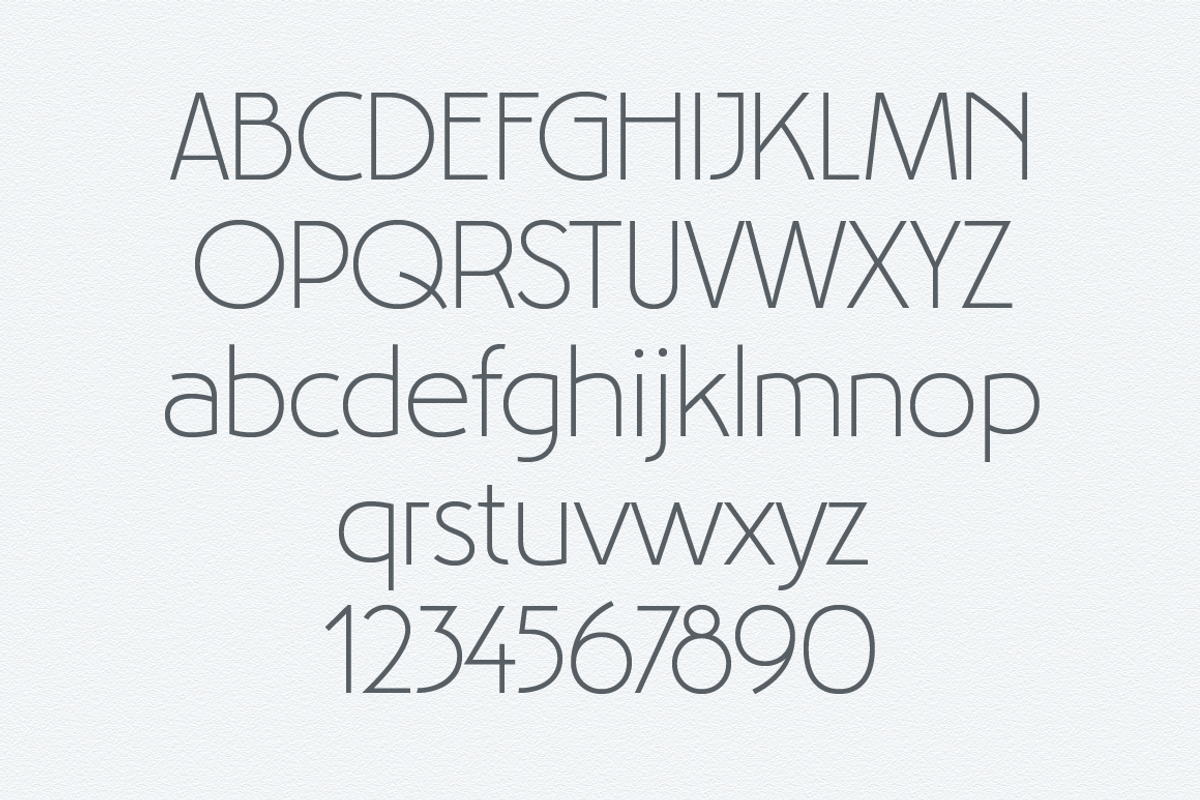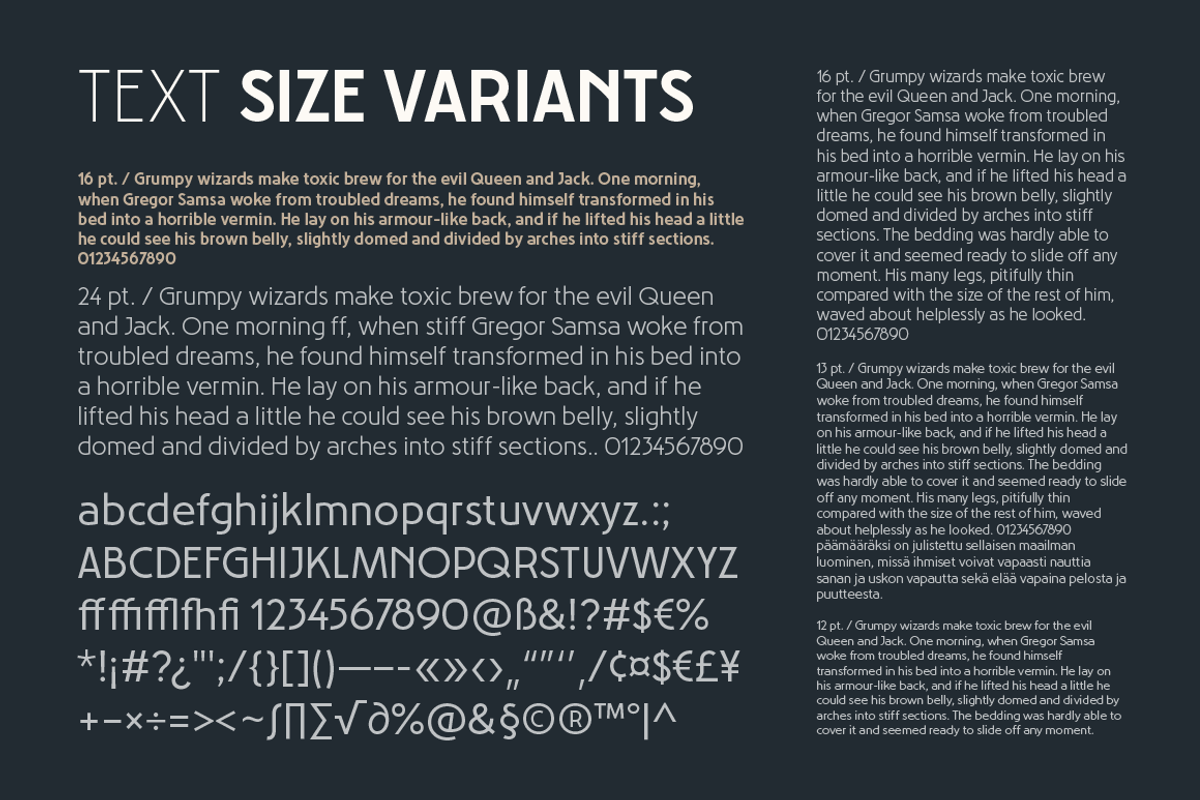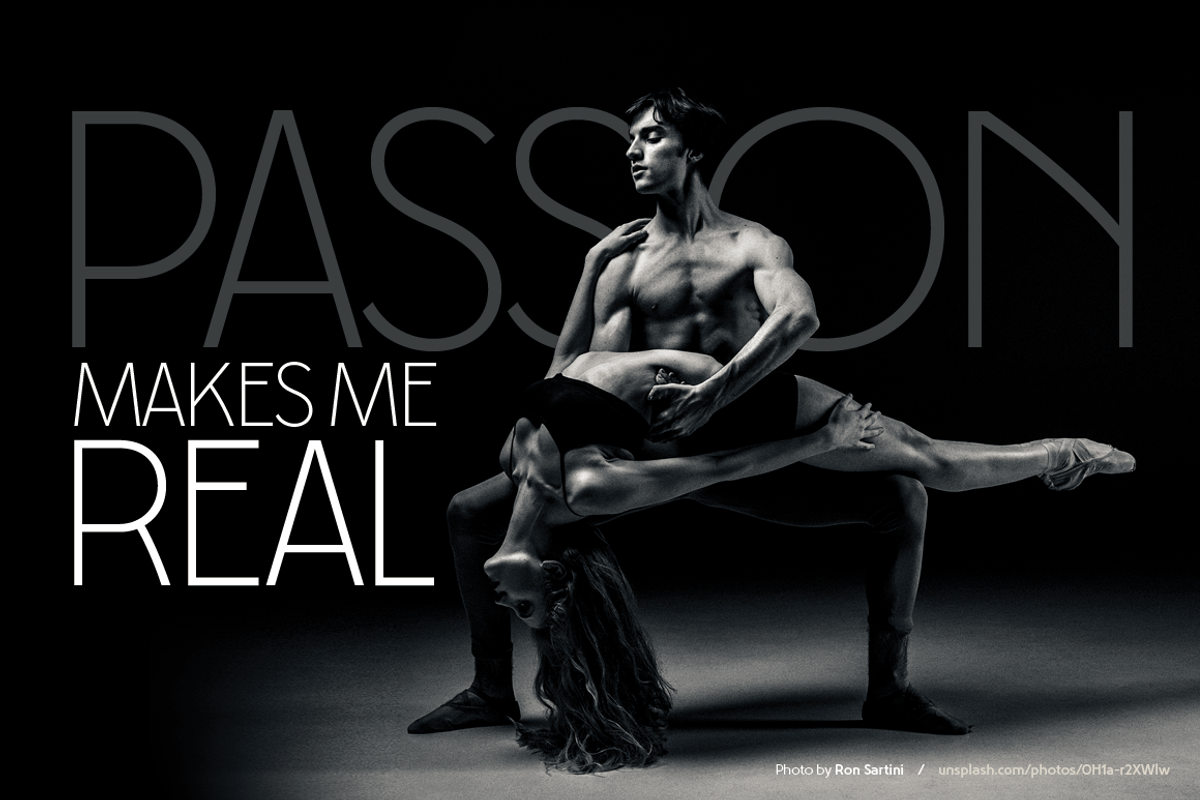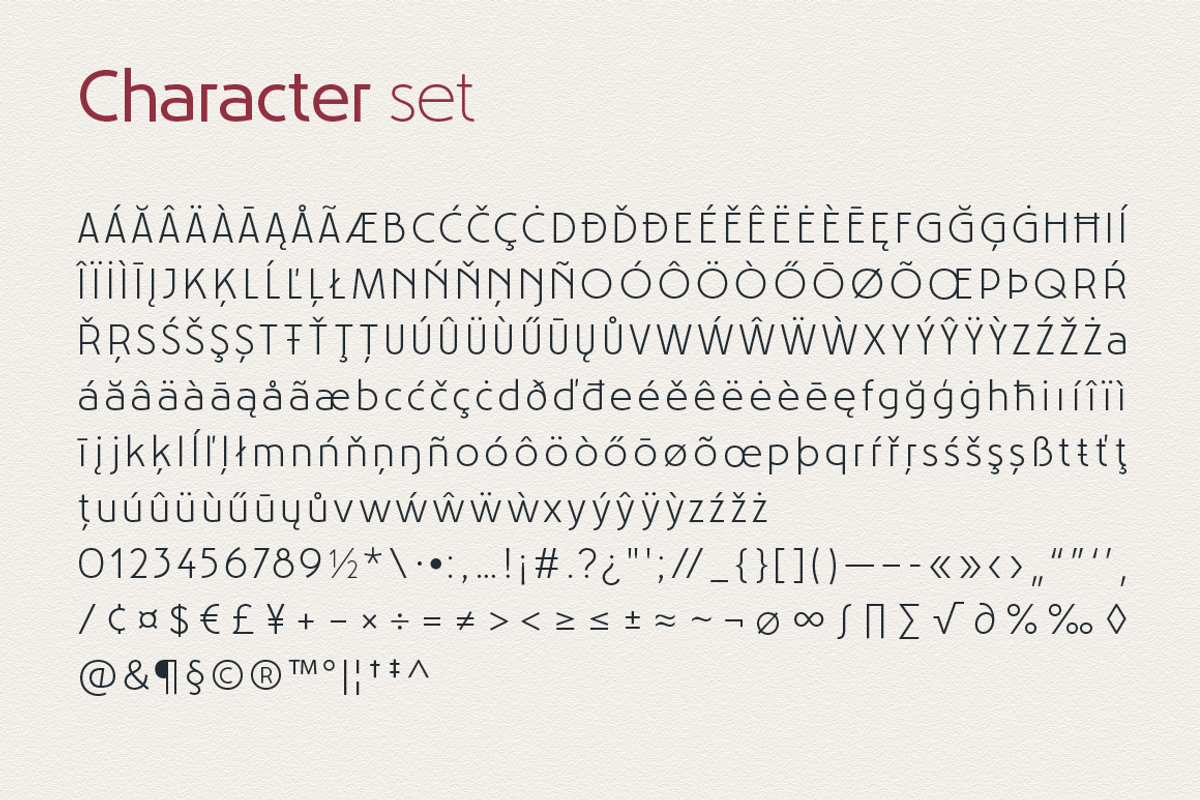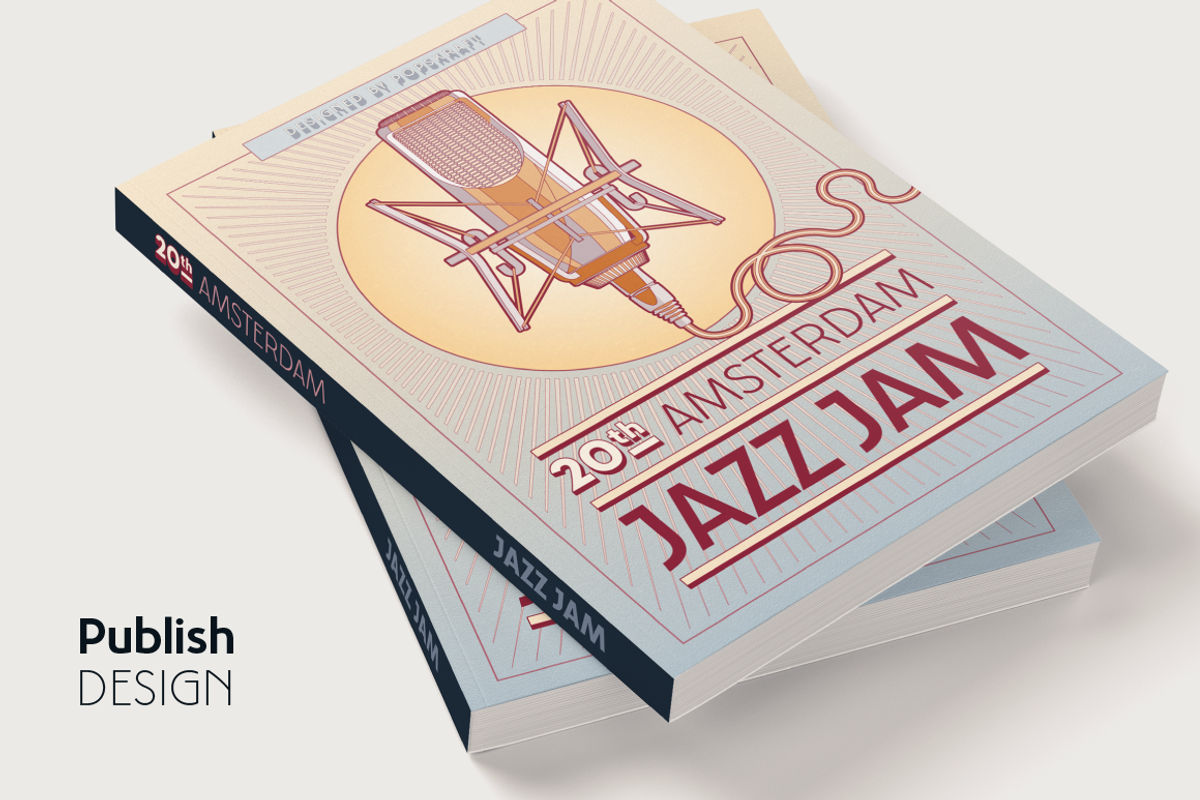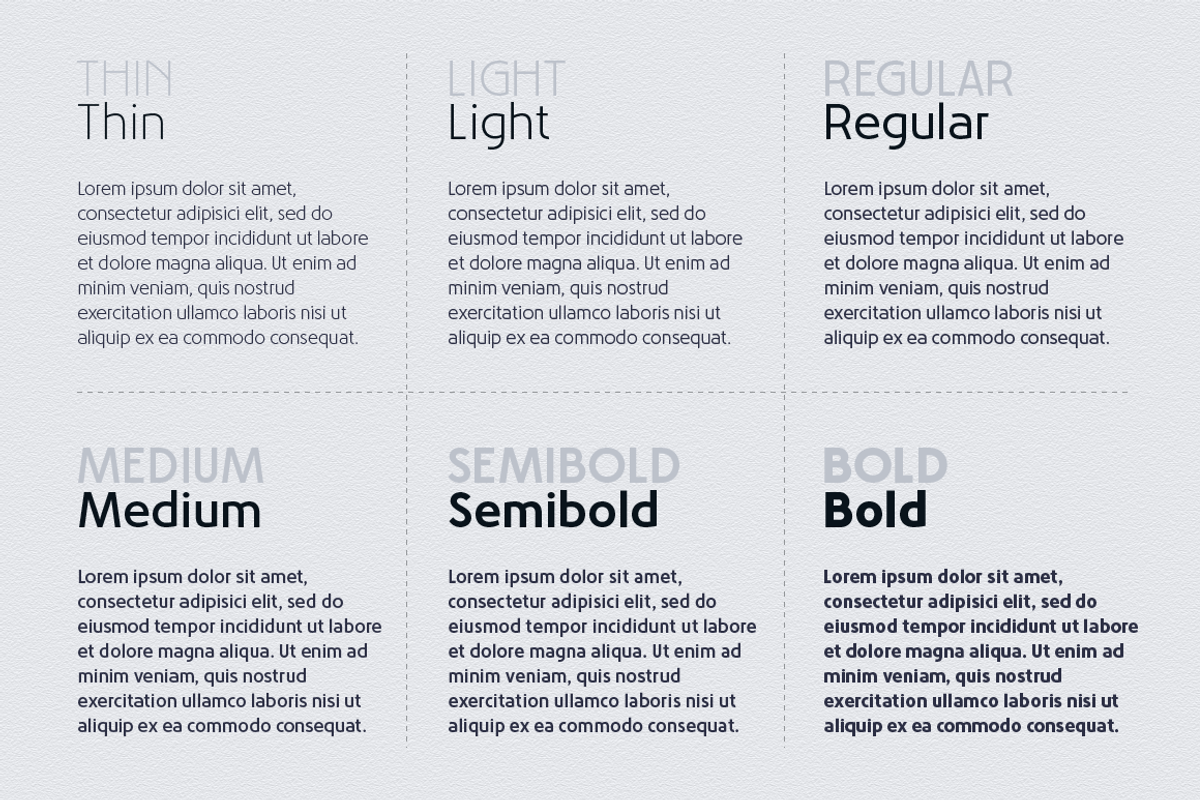
Artnoova font. Heritage of Art Deco
Artnoova font. Heritage of Art Deco by popskraft is a font selected for branding, posters, packaging, typography.
- Font supports Latin and most European language characters.
Why Artnoova font. Heritage of Art Deco is worth a look
Artnoova font. Heritage of Art Deco by popskraft fits naturally into Branding, posters, packaging, typography.